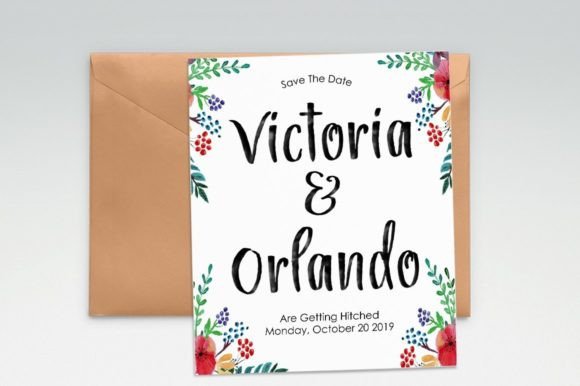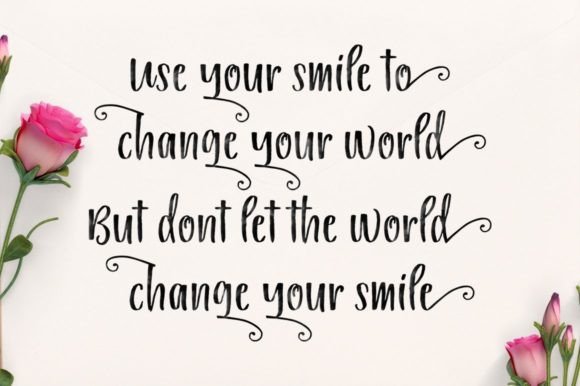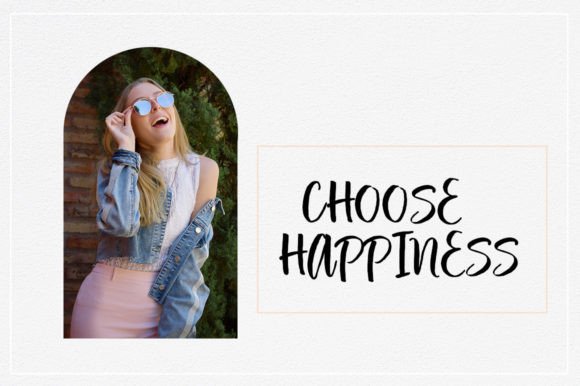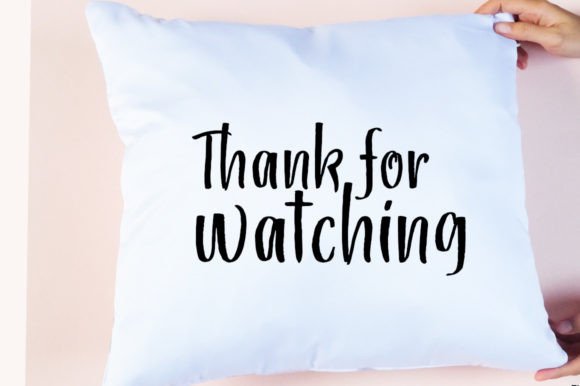
Introduction to Alameda Font
Have you ever been working on a creative project and suddenly, the right font pops up, elevating the entire design? That’s exactly what happened when I stumbled upon the Alameda Font. Its modern brush strokes and organic feel immediately caught my attention, and I knew I had to learn more about it.
As a designer, I’m always on the lookout for high-quality design resources that can help bring my ideas to life. The Alameda Font is one such resource that I’m excited to share with you. With its versatility and stylish aesthetic, it’s perfect for a wide range of creative projects, from stationery and fashion to logo design and merchandise.
Key Features of Alameda Font
- High-quality design resource for creative projects, offering a unique and elegant style.
- Comes with a transparent background, allowing for easy customization and integration into various designs.
- Features a clean and modern design, making it perfect for use in logos, branding materials, and other visual elements.
Honest Review: Alameda Font
I recently stumbled upon the Alameda Font and I must say, it’s been a game-changer for my creative project. As a designer, I’m always on the lookout for high quality design resources that can elevate my work.
The Alameda Font is a beautiful, elegant script font that’s perfect for headings and titles. It’s available for free download, which is a huge plus in my book. The font is also available in various formats, making it easy to use in different design applications.
What works well with the Alameda Font is its versatility. It’s suitable for a wide range of creative projects, from weddings to food labels. The font is also fully customizable, allowing you to adjust the size, color, and style to fit your design needs.
- High quality, elegant script font
⚠️ One limitation of the Alameda Font is that it’s not suitable for large blocks of text. The font is best used for headings and titles, as it can be quite ornate and overwhelming when used extensively.
Overall, I’m thoroughly impressed with the Alameda Font. It’s a fantastic addition to my design resource library, and I highly recommend it to fellow designers and creatives.
How to Use Alameda Font
The Alameda Font is a high-quality, free download that can be used in a variety of creative projects. With its clean and modern design, it’s perfect for any project that requires a professional touch.
Tips for Getting the Most Out of Alameda Font
For the best results, use the Alameda Font on a transparent background to create a clean and modern look. You can also pair it with other fonts to create a unique and eye-catching design.
The Alameda Font is perfect for any creative project that requires a professional touch, such as business cards, brochures, and website headers. Its clean and modern design makes it ideal for any project that needs to convey a sense of sophistication and style.